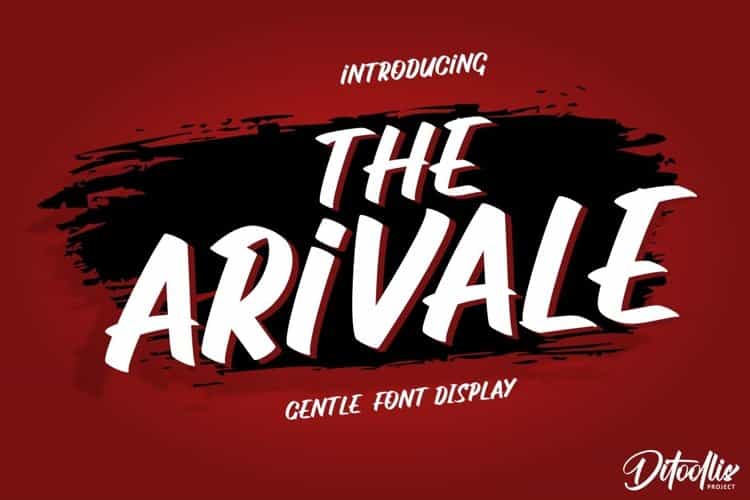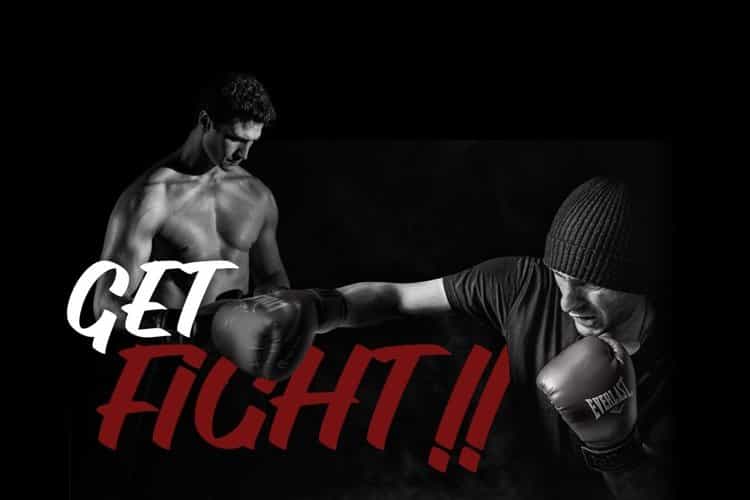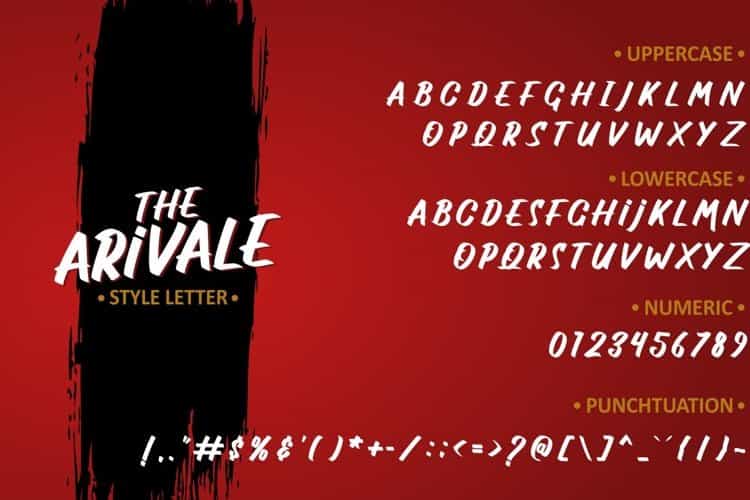
Discover The Arivale Bold Script Font, part of the Brush Display Script collection—a versatile and unique font perfect for adding a personal touch to your projects. Download it for free and enjoy crafting designs with style, from invitations to social media posts. This font is available exclusively for personal use, giving you the freedom to create without limits. Unlock your creativity with The Arivale Bold Script Font today!
The Arivale is a script font meticulously designed with hand lettering featuring stylistic alternatives and swashes to help customize your designs. Perfect for purposes like logos or other creative projects including quotes, merchandise labels, packaging materials, business cards.